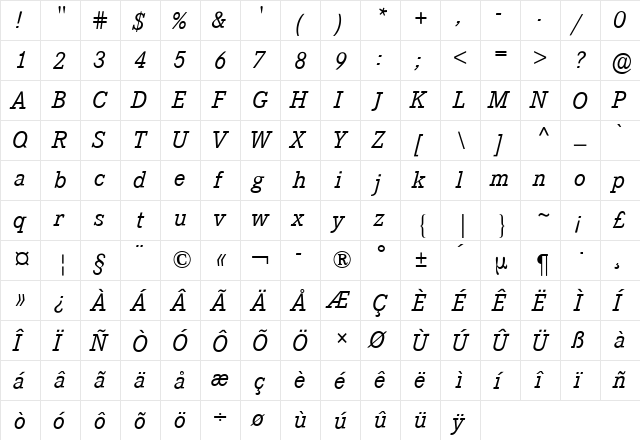
Corporate E BQ Italic
Design Context for Corporate E BQ Typeface
Corporate E BQ offers clean, dependable letterforms without strong stylistic allegiance, making it a practical choice for designers who need flexibility. The dynamic lean of this cut emphasises speed and emphasis in any layout.
Pro Tip: Use Corporate E BQ for emphasis, pull quotes, and subheadings where its slanted energy can add rhythm to the layout.